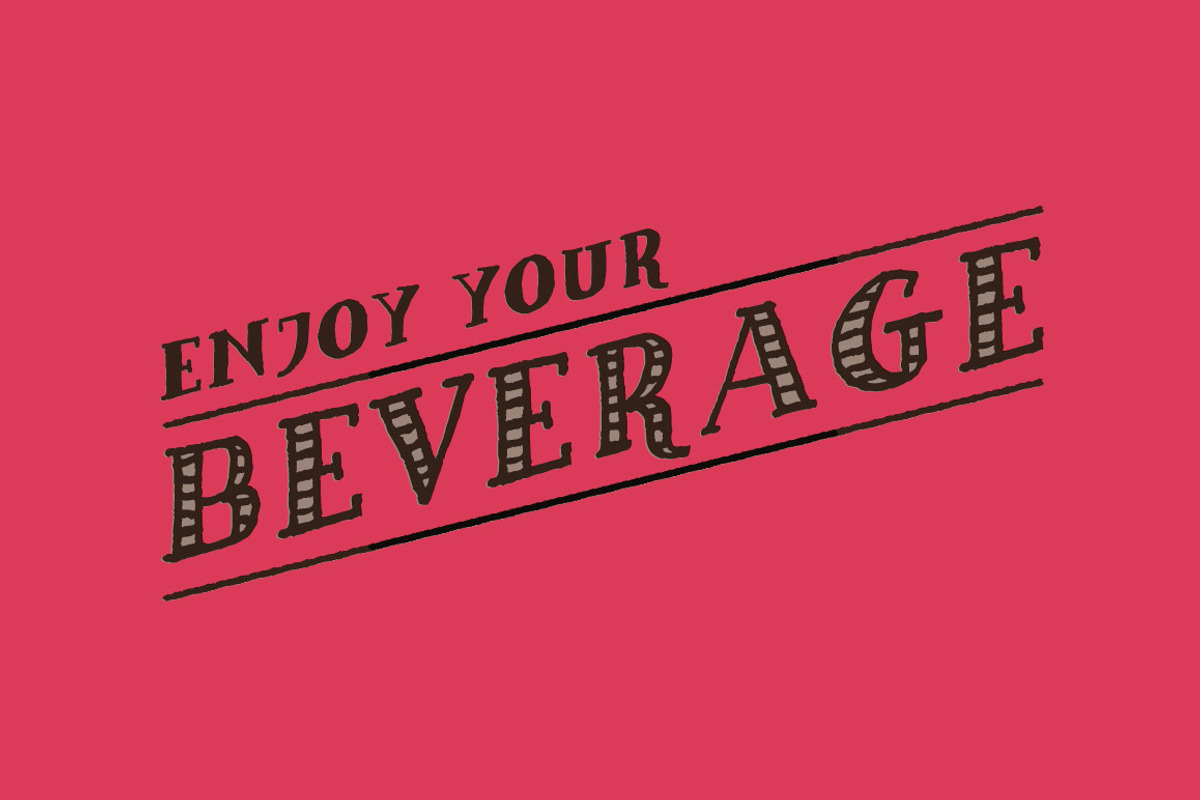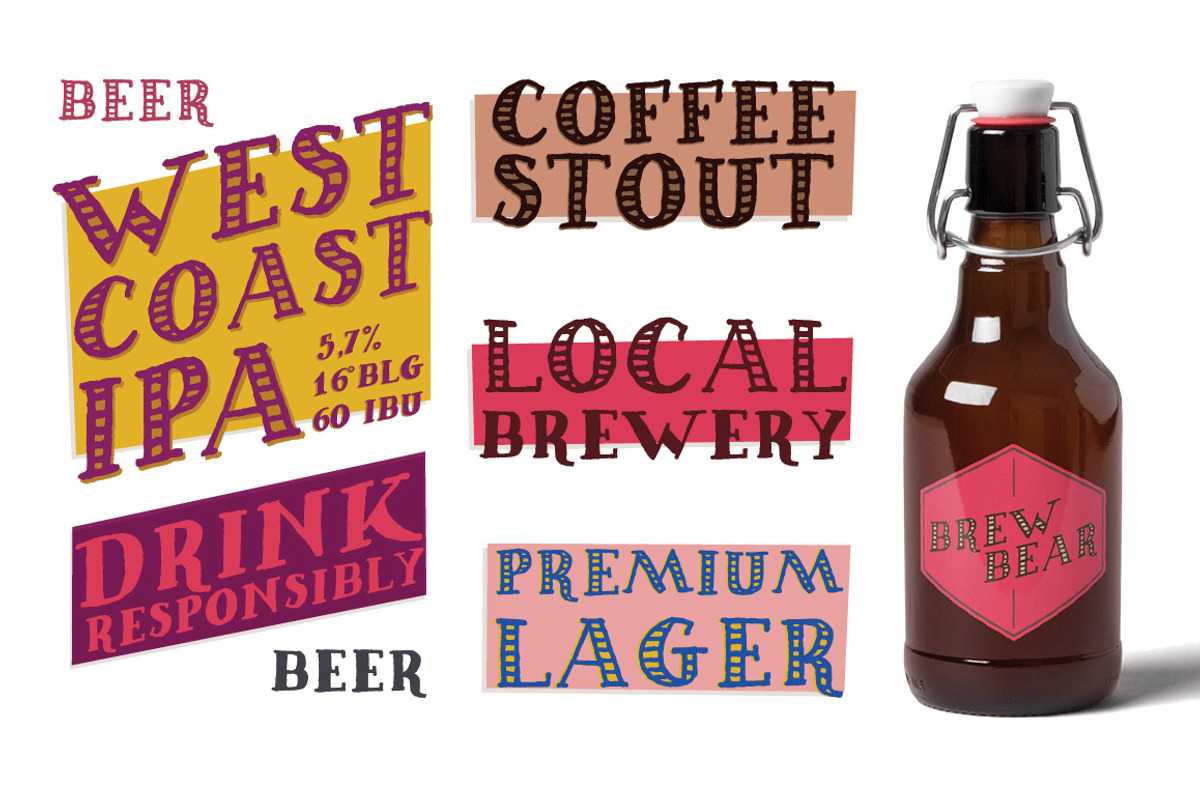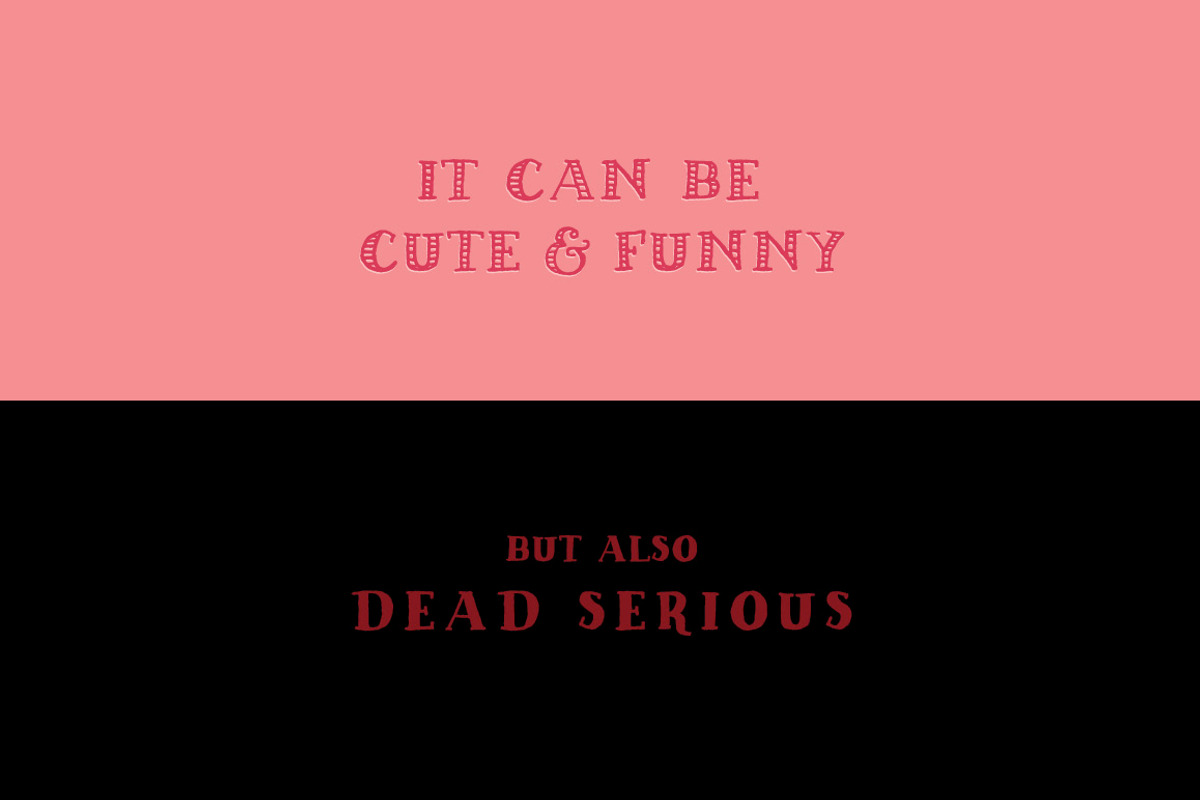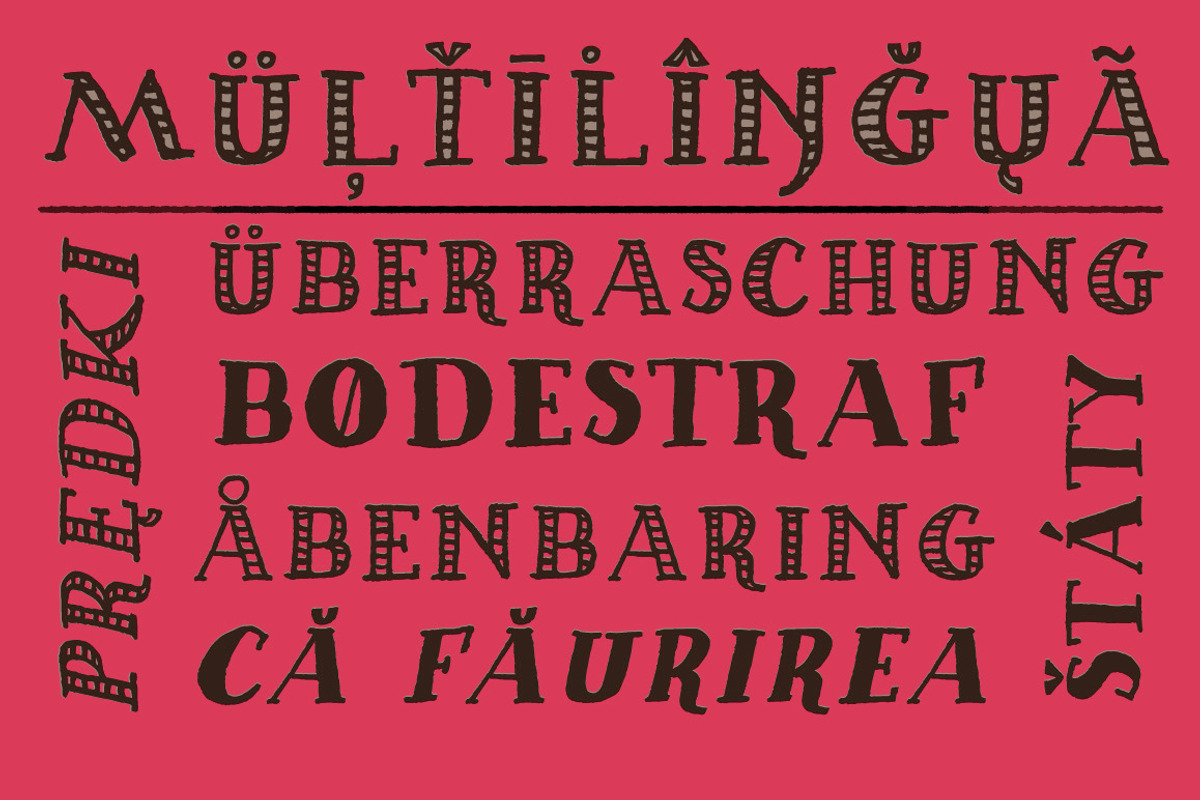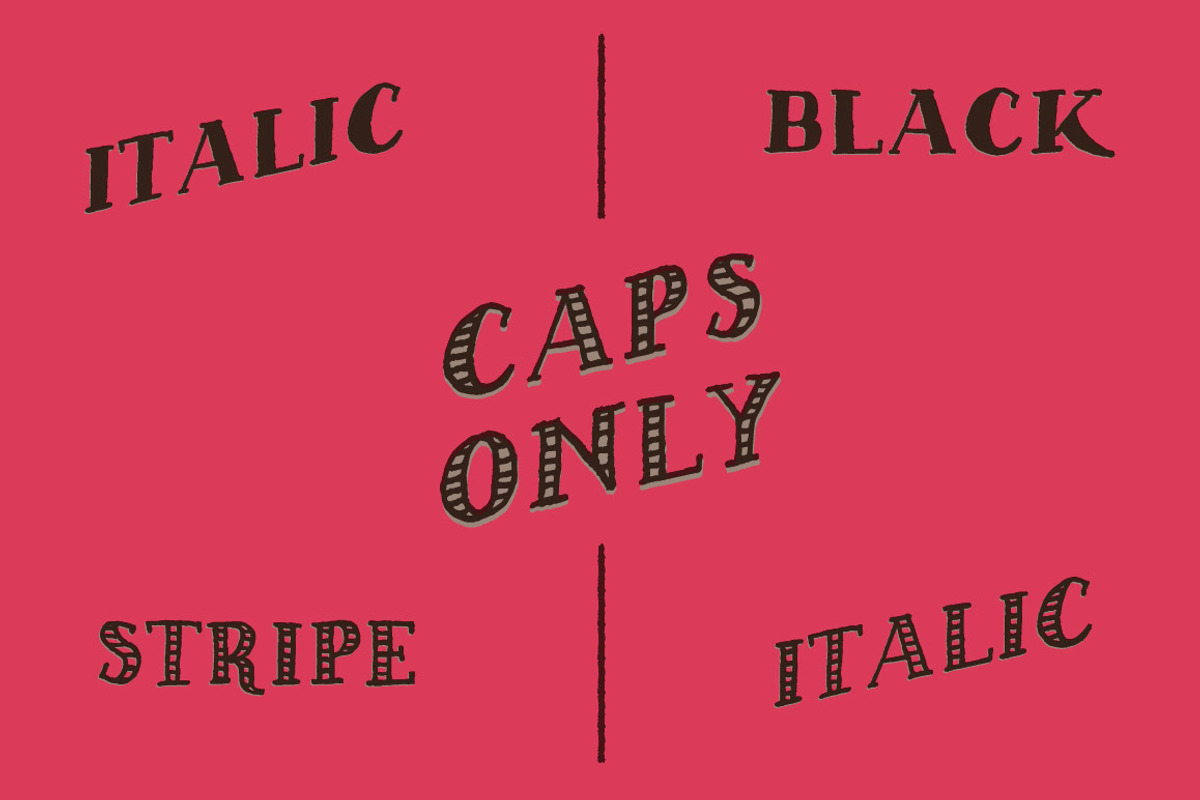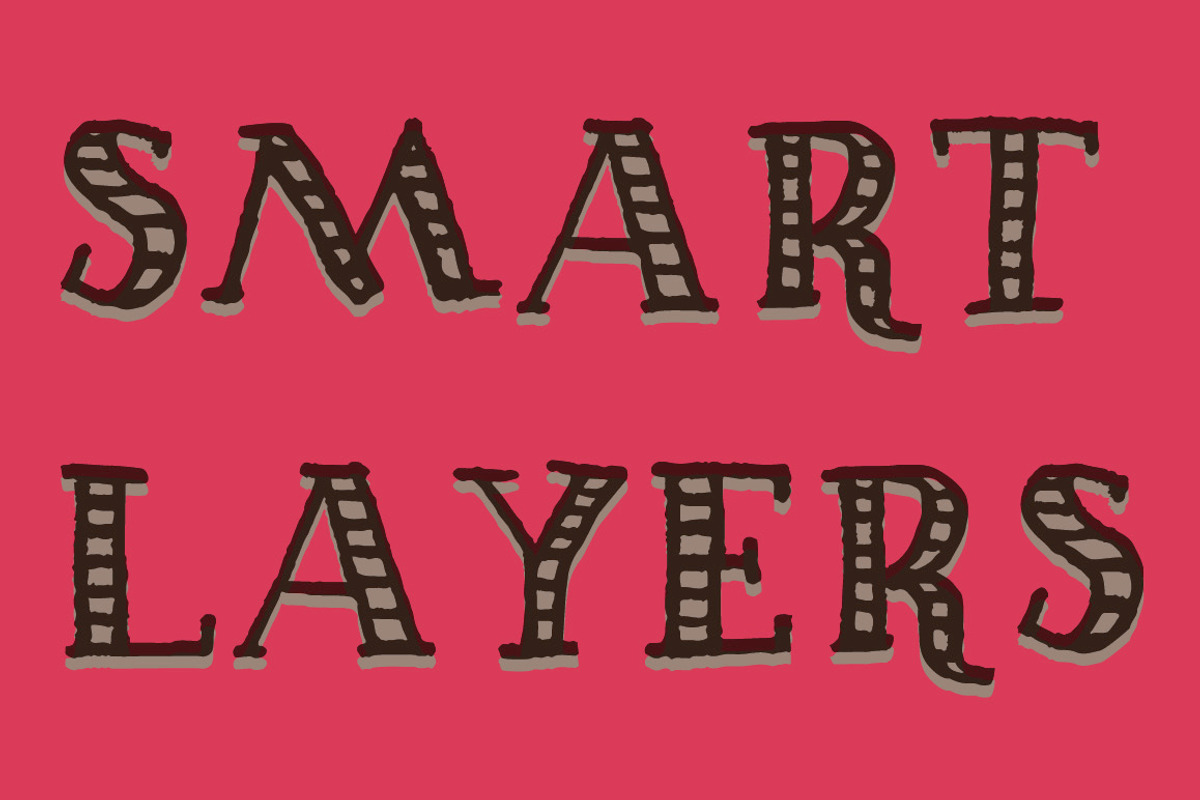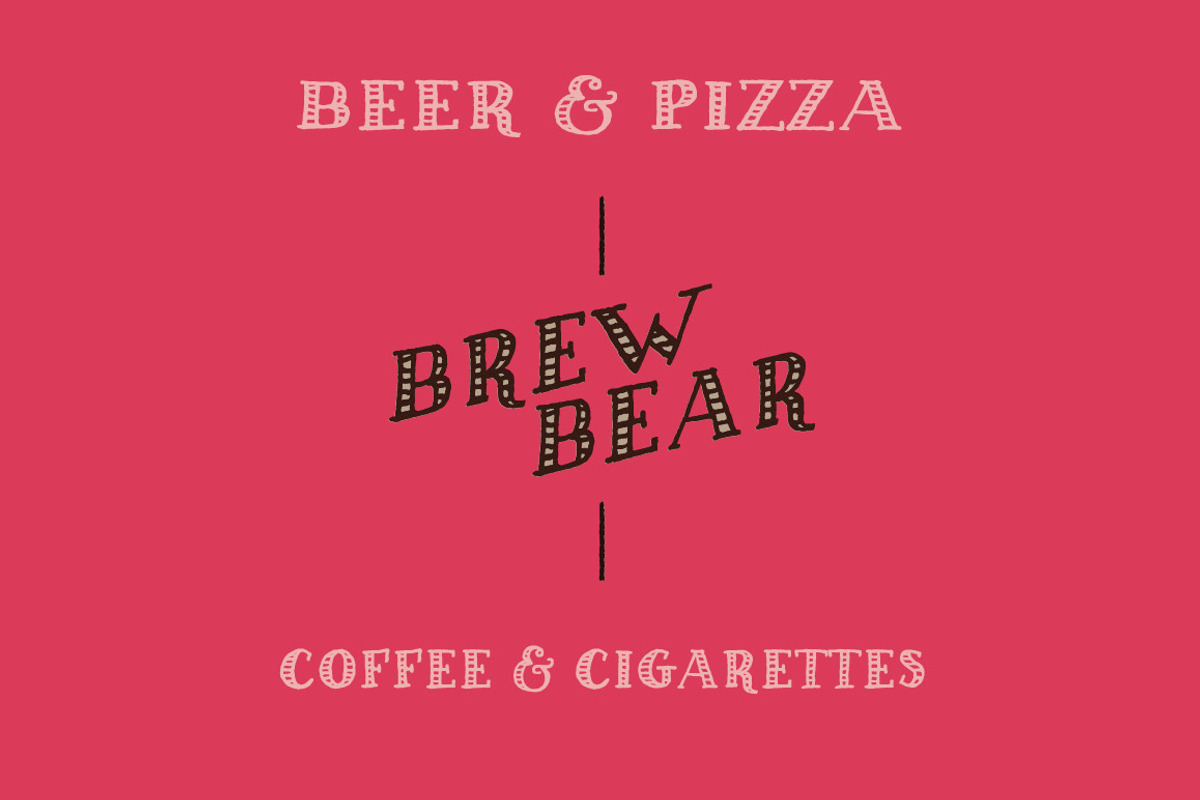
BrewBear
BrewBear is hand drawn font, made specially for your craft products like preserves, beverages, or other handmade stuff. Boost your creativity with BrewBear!